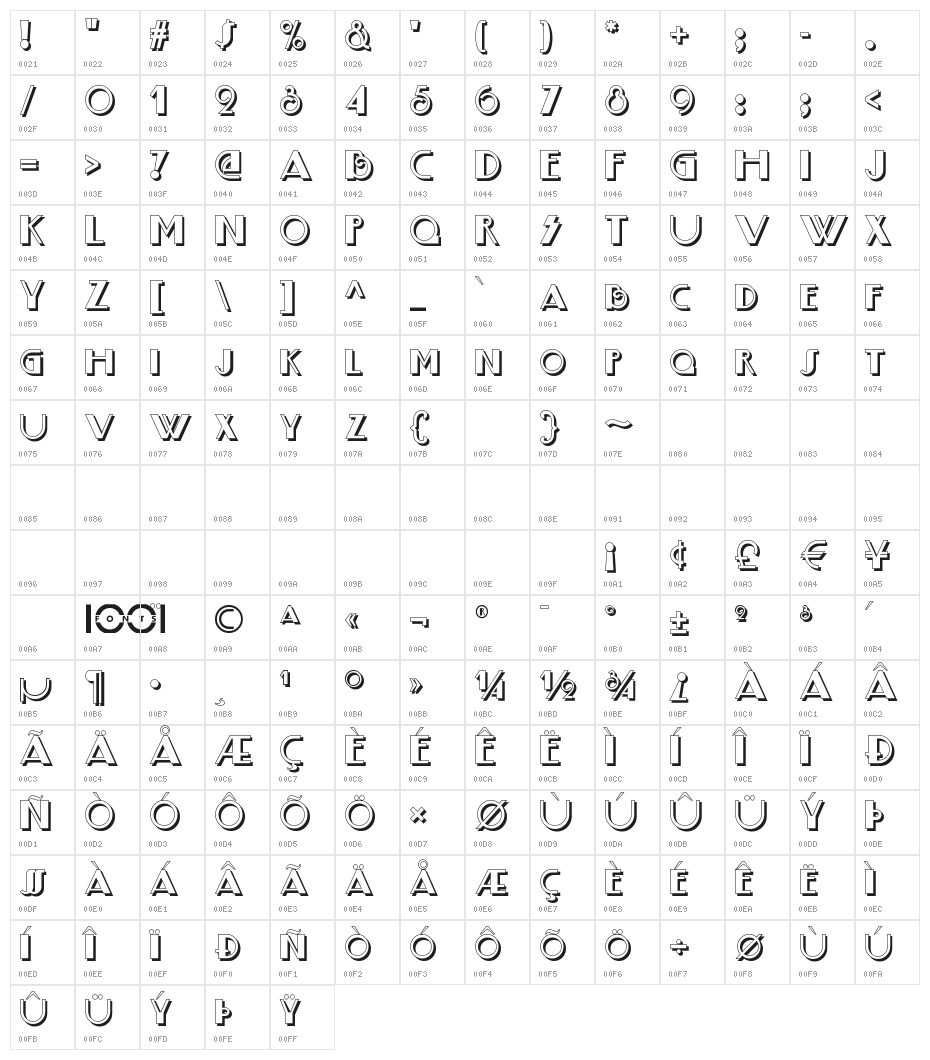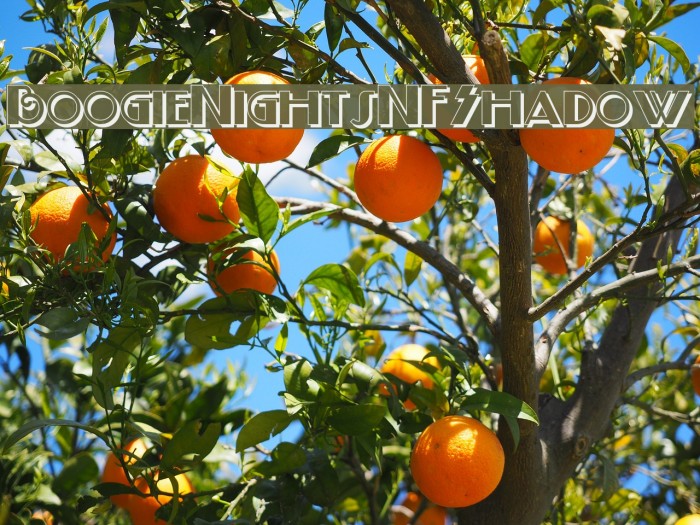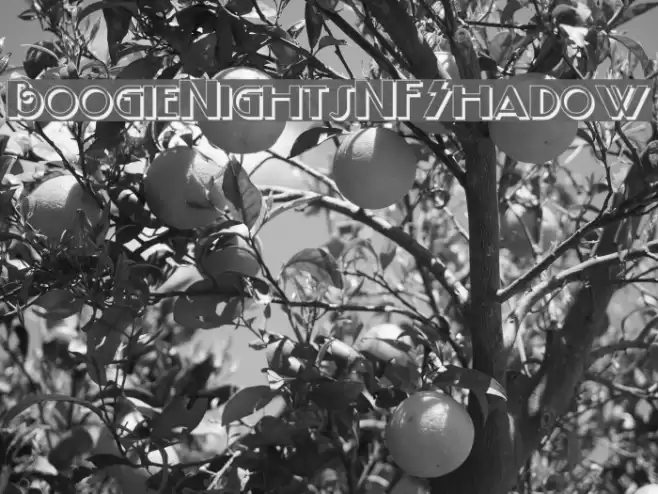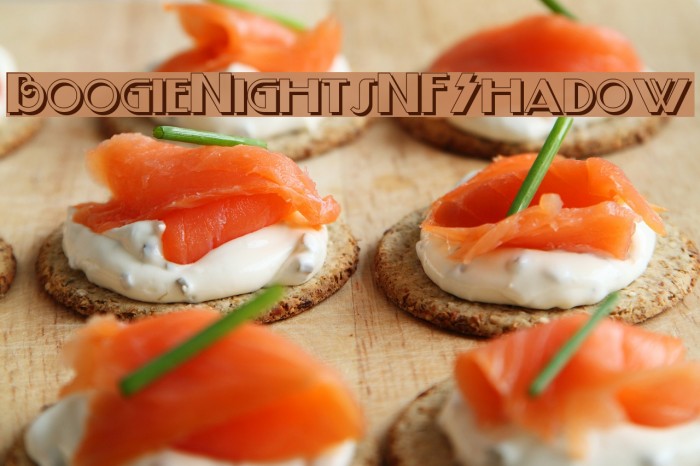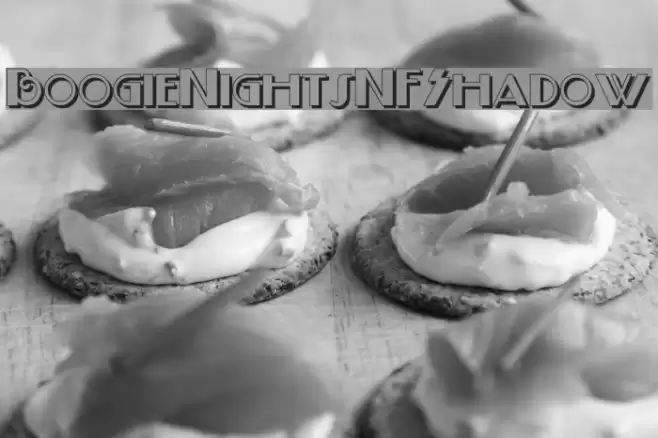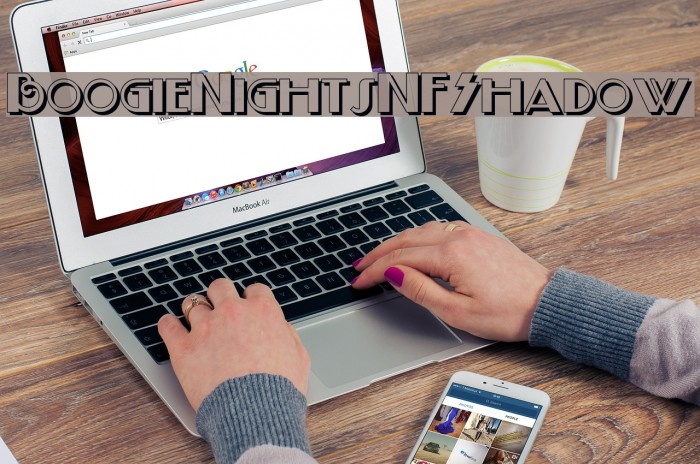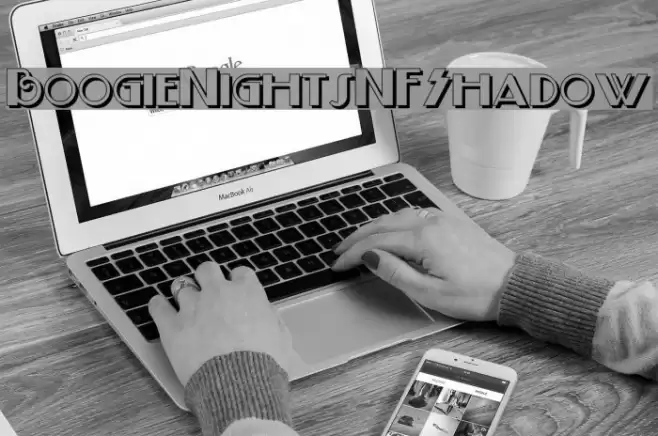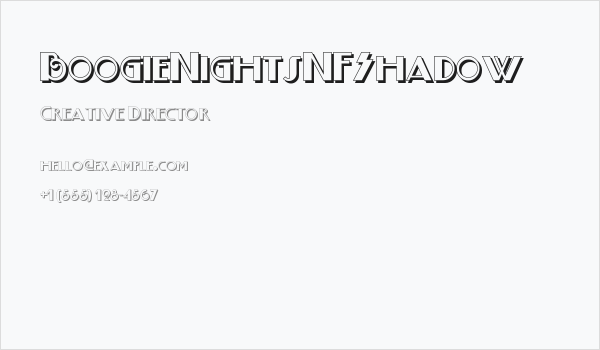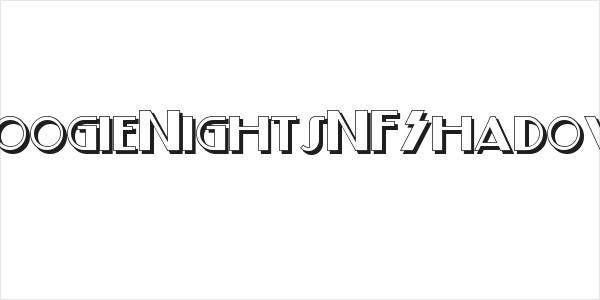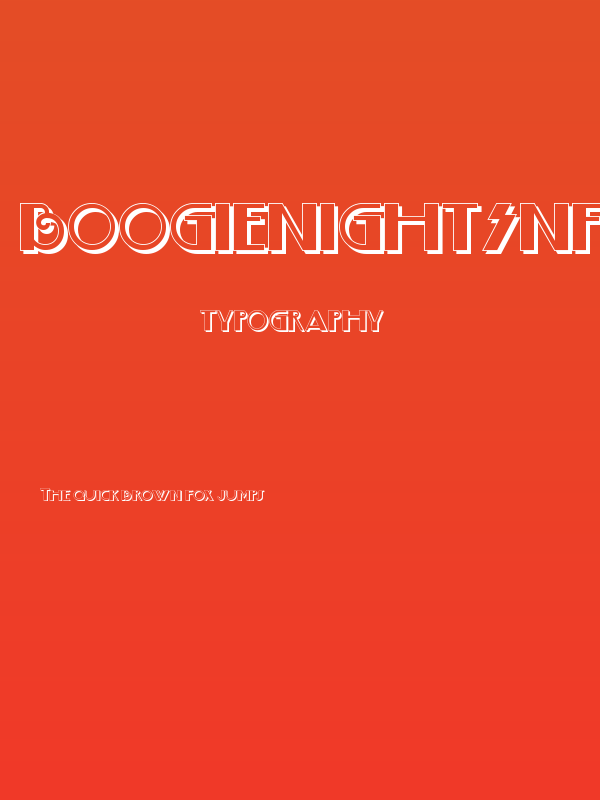
BoogieNightsNFShadow Font
BoogieNightsNFShadow Description
This font features a bold, geometric design with a distinct shadow effect that gives it a three-dimensional appearance. The characters are constructed with clean, straight lines and sharp angles, creating a modern and dynamic look. The shadow adds depth and a sense of movement, making it stand out in any design. The uppercase and lowercase letters maintain a consistent style, while the numbers and special characters complement the overall aesthetic. This font is ideal for projects that require a bold and eye-catching display, such as posters, headlines, or branding materials.
| Proposed Projects | Ideal for posters, headlines, branding, and any project needing a striking display font. |